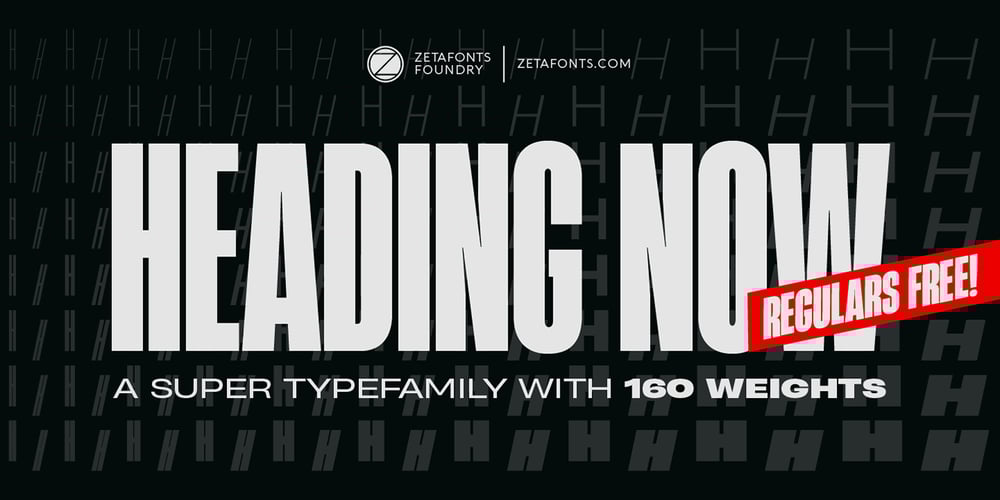
Heading Now Font Family was designed by Francesco Canovaro, Andrea Tartarelli, Cosimo Lorenzo Pancini, Mario De Libero and published by Zetafonts. Heading Now contains 162 styles and family package options. Heading Now is the new incarnation of Heading Pro, developing the original typeface family designed by Francesco Canovaro for Zetafonts into a superfamily with 160 variant combinations. Built around 10 different widths, ranging from ultra-compressed to ultra-wide, and eight weights from thin to heavy, Heading Now provides a full spectrum of sans serif type solutions to your design problems. Born as a space-optimizing typeface for headers and titles, Heading Now can be used in its compressed widths to manage space on the printed page and on the screen. In these widths Heading Now excels in titles and subheadings, timetables, infographics and in situations of exuberant and excessive copywriting. On the other side of the width spectrum, you can find extended width variants, ready to be used for titling where style and energy matter more than pixel or paper economy. Heading family is not only made of extreme widths: you can use the medium width range to design body text. Matching italics provide versatility in text use, as well as a dynamic display alternate to the bolder weights.Heading Now keeps the original design of Heading, but extends the width and weight range while keeping its (post) modernist attention to readability and details. Each Heading Now font includes over 1100 characters with coverage for 200+ languages using Latin, Cyrillic and Greek alphabets. A full array of open-type features is included in each weight featuring also stylistic alternates, small caps, old-style and tabular numerals and positional figures.• Suggested uses: born as a space-optimizing typeface for headers and titles, Heading Now can be used in its compressed widths to manage space on the printed page and on the screen. Perfect for contemporary branding, web design, packaging and countless other projects;• 162 styles: 8 weights + 8 italics x 10 different widths + 2 variable fonts;• 1100 glyphs in each weight;• Useful OpenType features: Access All Alternates, Small Capitals From Capitals, Case-Sensitive Forms, Glyph Composition / Decomposition, Denominators, Fractions, Kerning, Standard Ligatures, Lining Figures, Localized Forms, Mark Positioning, Mark to Mark Positioning, Numerators, Oldstyle Figures, Ordinals, Proportional Figures, Stylistic Alternates, Scientific Inferiors, Small Capitals, Stylistic Set 1, Stylistic Set 2, Stylistic Set 3, Stylistic Set 4, Subscript, Superscript, Tabular Figures, Slashed Zero;• 220 languages supported (extended Latin, Cyrillic, Greek alphabets):English, Spanish, Portuguese, French, Russian, German, Javanese (Latin), Vietnamese, Turkish, Italian, Polish, Afaan Oromo, Azeri, Tagalog, Sundanese (Latin), Filipino, Moldovan, Romanian, Indonesian, Dutch, Cebuano, Igbo, Malay, Uzbek (Latin), Kurdish (Latin), Swahili, Greek, Hungarian, Czech, Haitian Creole, Hiligaynon, Afrikaans, Somali, Zulu, Serbian, Swedish, Bulgarian, Shona, Quechua, Albanian, Catalan, Chichewa, Ilocano, Kikongo, Kinyarwanda, Neapolitan, Xhosa, Tshiluba, Slovak, Danish, Gikuyu, Finnish, Norwegian, Sicilian, Sotho (Southern), Kirundi, Tswana, Sotho (Northern), Belarusian (Latin), Turkmen (Latin), Bemba, Lombard, Lithuanian, Tsonga, Wolof, Jamaican, Dholuo, Galician, Ganda, Low Saxon, Waray-Waray, Makhuwa, Bikol, Kapampangan (Latin), Aymara, Zarma, Ndebele, Slovenian, Tumbuka, Venetian, Genoese, Piedmontese, Swazi, Zazaki, Latvian, Nahuatl, Silesian, Bashkir (Latin), Sardinian, Estonian, Afar, Cape Verdean Creole, Maasai, Occitan, Tetum, Oshiwambo, Basque, Welsh, Chavacano, Dawan, Montenegrin, Walloon, Asturian, Kaqchikel, Ossetian (Latin), Zapotec, Frisian, Guadeloupean Creole, Q’eqchi’, Karakalpak (Latin), Crimean Tatar (Latin), Sango, Luxembourgish, Samoan, Irish, Maltese, Tzotzil, Fijian, Friulian, Icelandic, Sranan, Wayuu, Papiamento, Aromanian, Corsican, Breton, Amis, Gagauz (Latin), Māori, Tok Pisin, Tongan, Alsatian, Atayal, Kiribati, Seychellois Creole, Võro, Tahitian, Scottish Gaelic, Chamorro, Greenlandic (Kalaallisut), Kashubian, Faroese, Rarotongan, Sorbian (Upper Sorbian), Karelian (Latin), Romansh, Chickasaw, Arvanitic (Latin), Nagamese Creole, Saramaccan, Ladin, Kaingang, Palauan, Sami (Northern Sami), Sorbian (Lower Sorbian), Drehu, Wallisian, Aragonese, Mirandese, Tuvaluan, Xavante, Zuni, Montagnais, Hawaiian, Marquesan, Niuean, Yapese, Vepsian, Bislama, Hopi, Megleno-Romanian, Creek, Aranese, Rotokas, Tokelauan, Mohawk, Onĕipŏt, Warlpiri, Cimbrian, Sami (Lule Sami), Jèrriais, Arrernte, Murrinh-Patha, Kala Lagaw Ya, Cofán, Gwich’in, Seri, Sami (Southern Sami), Istro-Romanian, Wik-Mungkan, Anuta, Cornish, Sami (Inari Sami), Yindjibarndi, Noongar, Hotcąk (Latin), Meriam Mir, Manx, Shawnee, Gooniyandi, Ido, Wiradjuri, Hän, Ngiyambaa, Delaware, Potawatomi, Abenaki, Esperanto, Folkspraak, Interglossa, Interlingua,